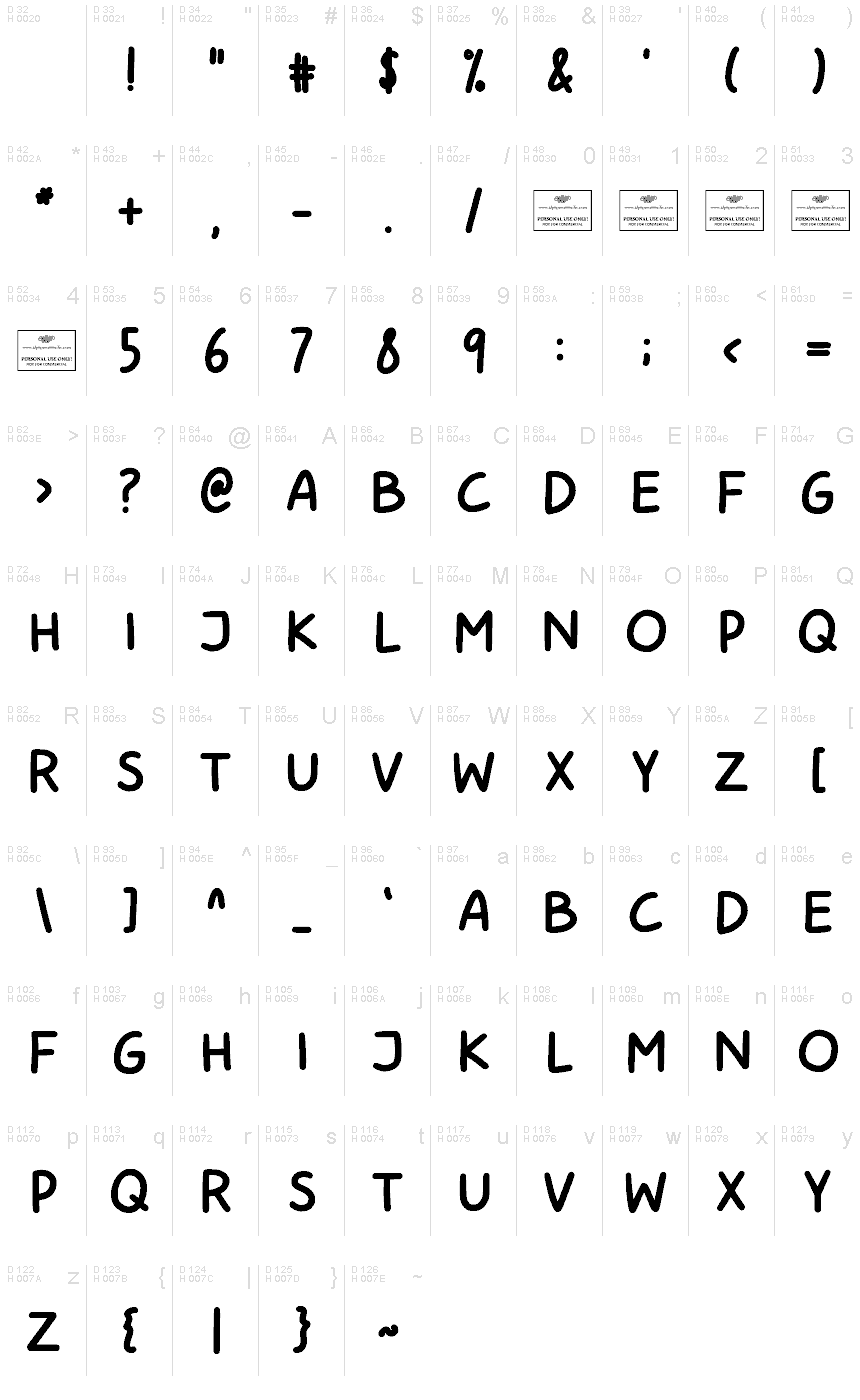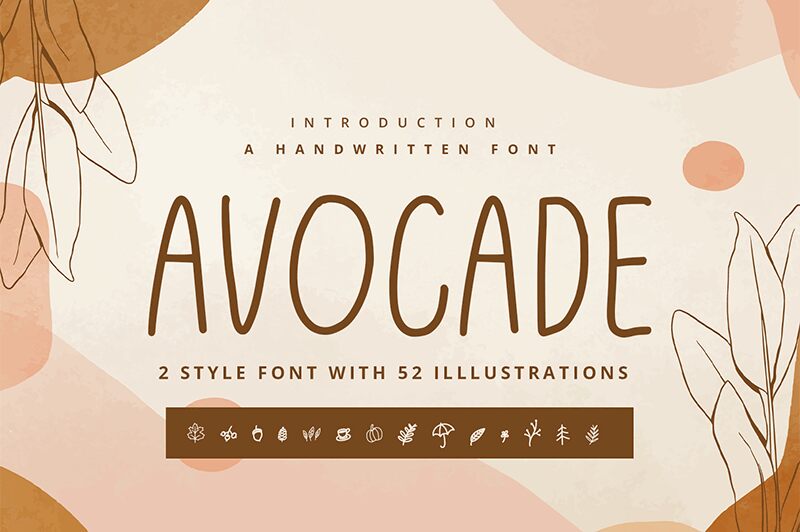
Avocade Bold
Avocade Bold font is a free handwritten font from Alpaprana Studio. This casual typeface has an appealing organic style that makes any word and phrase look friendly and approachable to the audience. Sporting a humanist style with relaxed elements, Avocade is one of those fonts that will make you want to hang out outside of work.
Use Avocade for something fun like Instagram posts, story highlights covers, packaging for snacks or handmade goods, invitations and greeting cards. You could also have some fun designing casual games interfaces and in-app screens with this playful typeface.